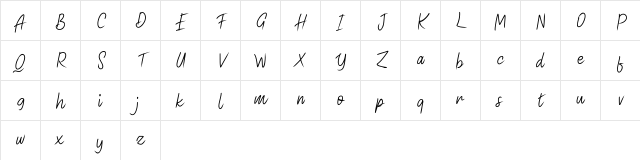
Acusted FREE Regular Free Font
Acusted FREE Regular
Foundry: Vunira Design
Designer: Vunira Design
Design Context for Acusted FREE
Acusted FREE is a composed and adaptable typeface that performs quietly and consistently across a wide range of design contexts.